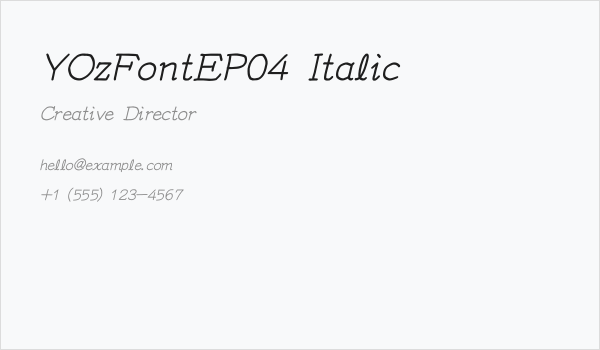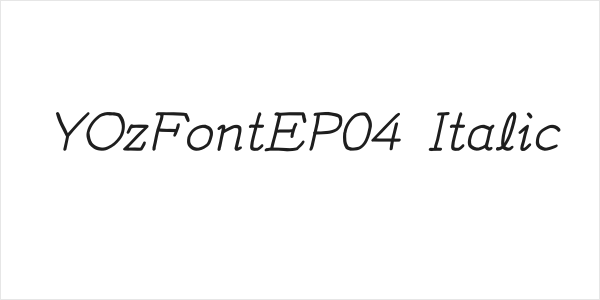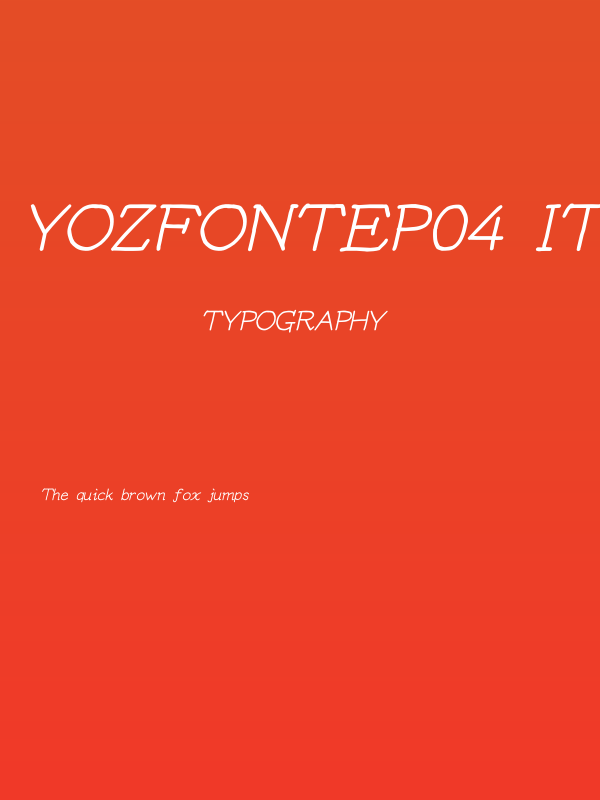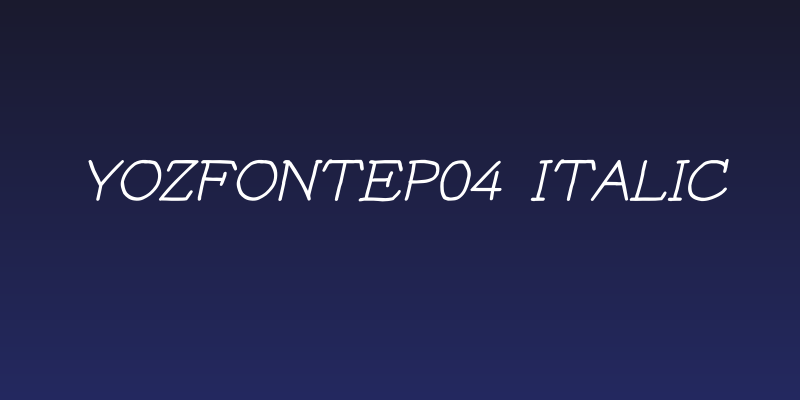
YOzFontEP04 Italic Font
YOzFontEP04 Italic Description
This font features a sleek, italicized style with a modern flair. The characters are slightly slanted, giving a sense of motion and elegance. The uppercase letters are tall and slightly narrow, while the lowercase letters maintain a consistent flow with rounded edges. The numerals are clear and easy to read, matching the overall style of the alphabet. Special characters are well-integrated, maintaining the font's cohesive look. The font's design is both stylish and functional, making it suitable for various applications.
Use CaseHeadlines, Logos, Invitations
Proposed ProjectsIdeal for branding, fashion magazines, elegant invitations, and modern web design.